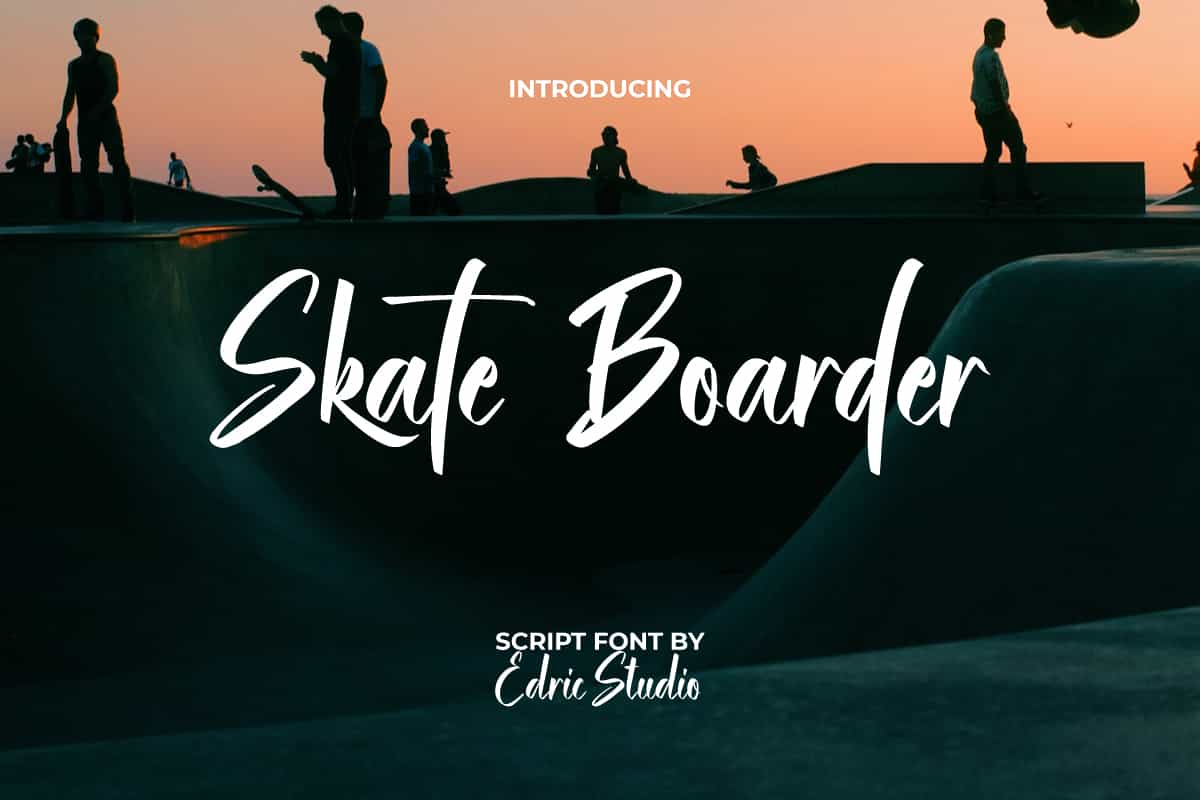
Skate Boarder Calligraphy Script Font
Skate Boarder Calligraphy Font is a stylish calligraphy script font with a timeless looks and vibrant feel to live. From billboards and branding to packaging, flyers, posters, and websites, Skate Boarder Font will transform your designs into standout visuals.
Skate Boarder Calligraphy Script Font this versatile font includes a complete set of uppercase and lowercase characters, numbers, punctuation, symbols, and alternates. The alternate glyphs allow you to experiment freely, creating unique and personalized typography that elevates your message. It has a full set of Basic Uppercase and Lowercase Characters, Numbers, Punctuation, Symbols, and Alternate.
Skate Boarder Font is a playful typeface with unique decoration in each character. Compatible with both Windows and Mac, It’s tested to work well in the Adobe Apps (Illustrator, Adobe InDesign, Adobe Photoshop) even work on Microsoft Word. All of these characters are available through the glyph panel, moreover each letter has its own unicode (PUA) so you can access all the characters easily.